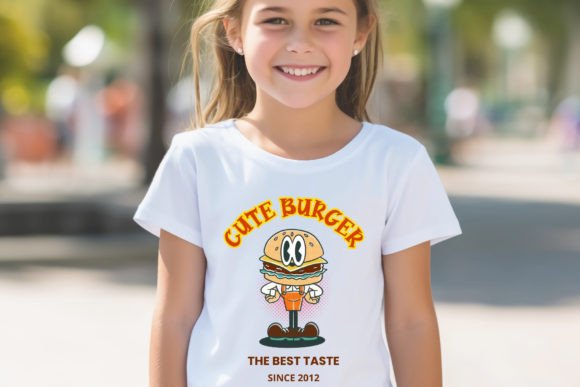
Birthday Font
Birthday is a sweet and cute font that exudes joy and is adorable! Full of relaxed charm, it is perfect for a variety of design environments. Its playful touch makes it an ideal choice for children’s t-shirts, helping every wearer look sparkling.